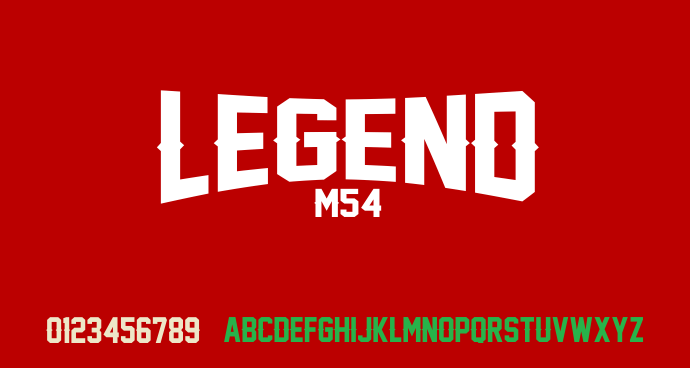
A font I ended up with after tweaking one of my other fonts. I really liked what I ended up with so I thought it’d be cool to turn it into a font and share it. Ideal for apparel design, posters, CD’s and anything else you can think of really. If you find this font useful then please consider a donation to justme54s[at]yahoo.co.uk, any amount will be greatly appreciated. A donation isn't necessary to use this font for personal or non-commercial use. I'll be interested to know how people use it so a picture or artwork sent to justme54s[at]yahoo.co.uk would be nice. If you wish to use this font commercially a donation or license is required, please email for further information. Alternatively, for one time commercial use just send details of usage along with your donation so that a return email can be sent as proof of rights to commercial usage. Usage Agreement You may not host this font anywhere online as it is hosted exclusively at FontSpace.com and Dafont.com. Any links for downloads should be directed to FontSpace or Dafont. You may share the font electronically but the Zip file should remain intact with the font alongside all other files as packaged. You may not sell this font, but are allowed to distribute it freely i.e. in magazines. |